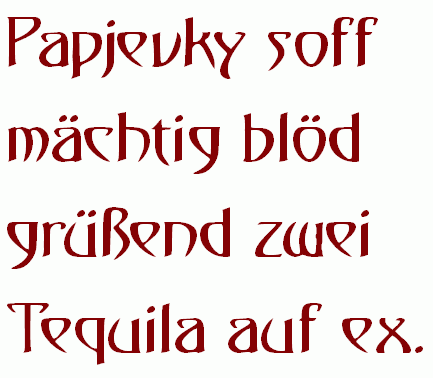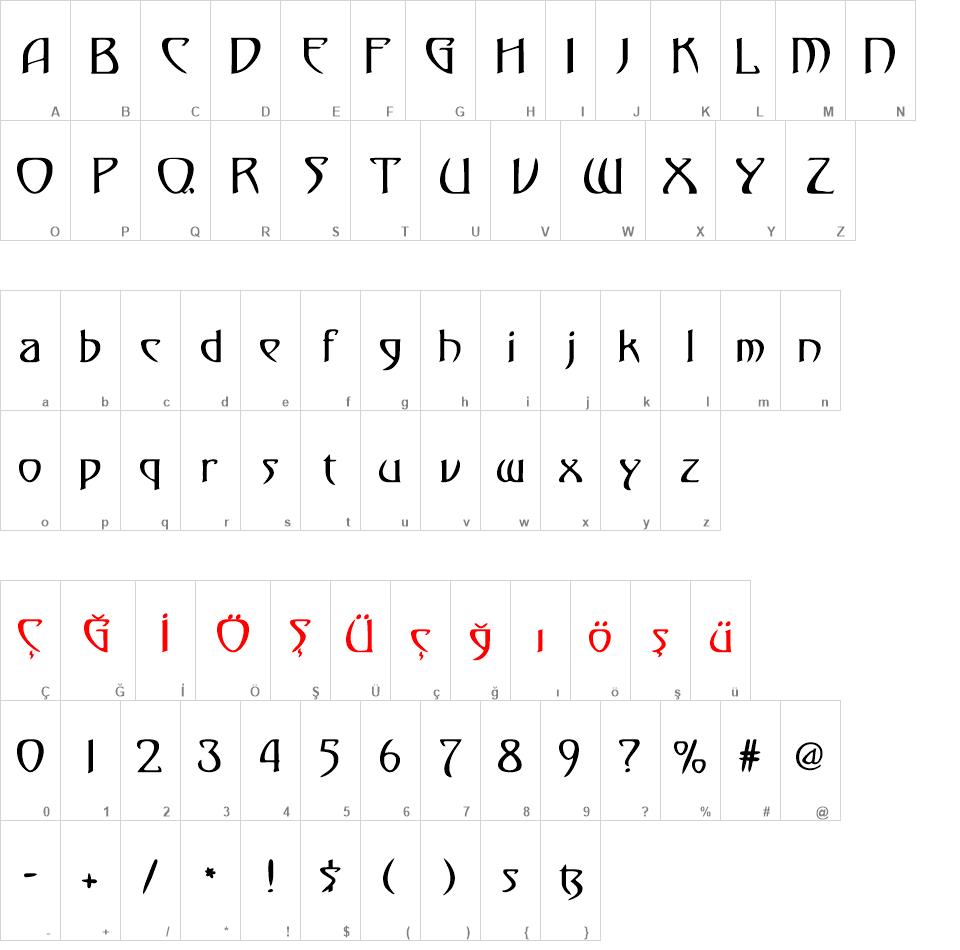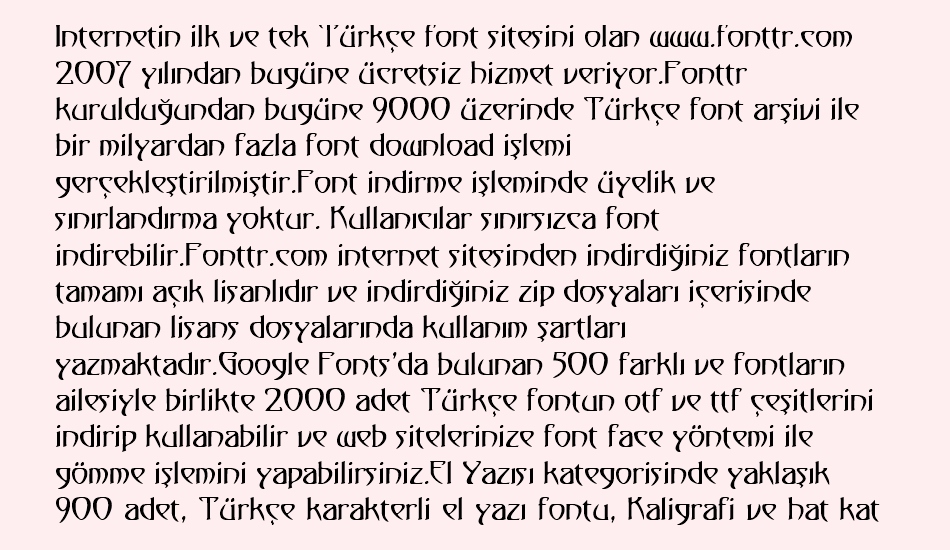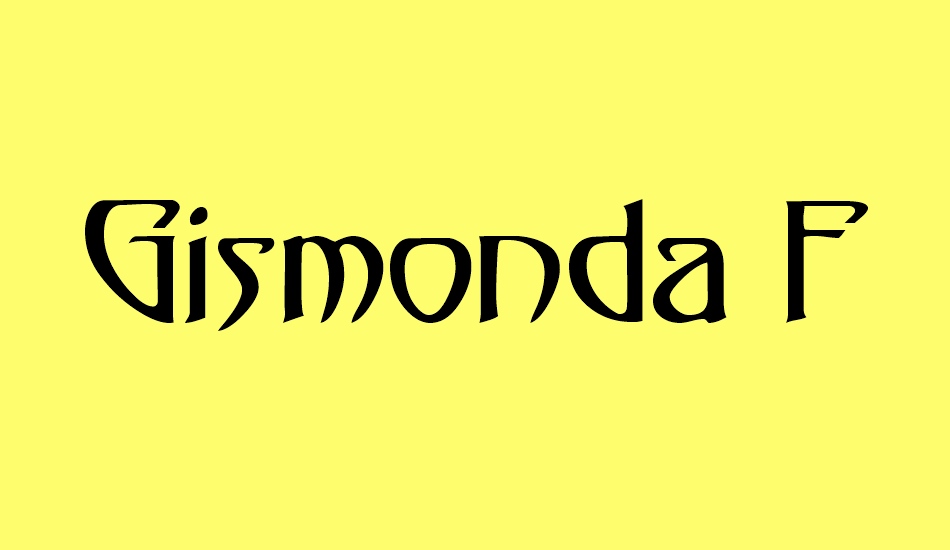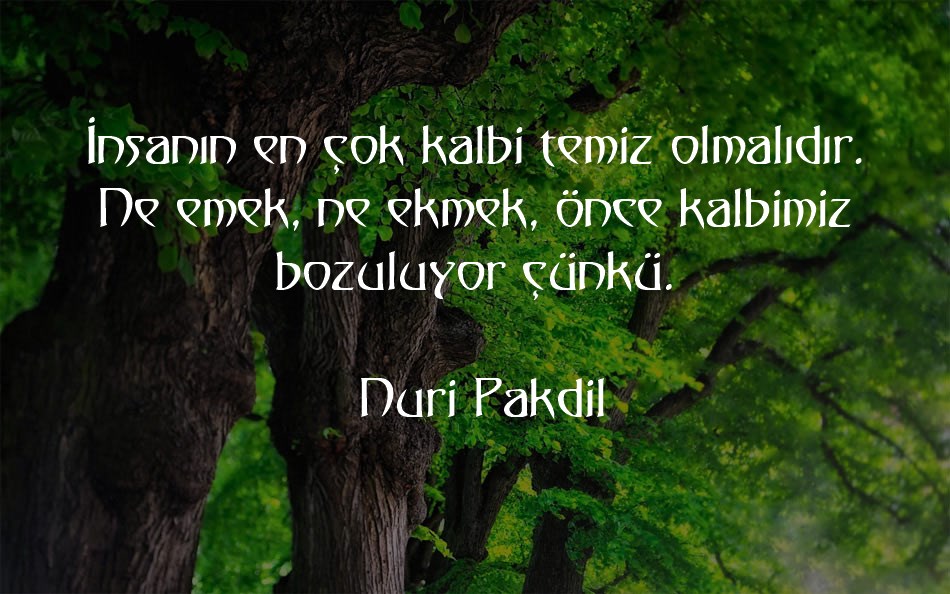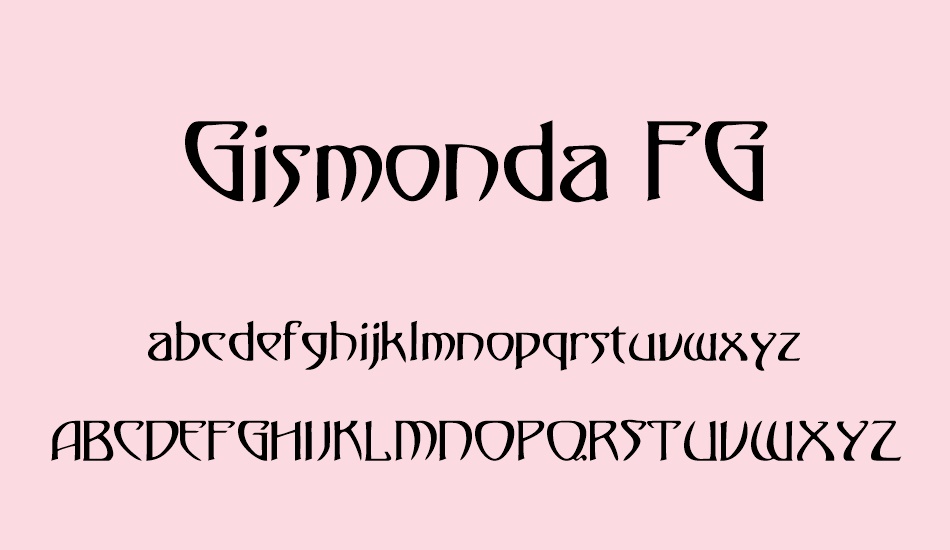
Gismonda FG font
Gismonda FG
Gismonda is an elegant Art-Nouveau style typeface in one weight possibly published first by the now extinct company Face Photosetting in London, UK.
I found this font on a PD font CD without any hints to its origin. In 2002, I cleaned up the glyphs and added international characters. That version was published in Fontgrube through the same year.
Later on I learned that the font digitisation was attributed to one Sam Wang - there are quite a few people of this name in the net but none of them obviously associated with fontmaking. He seems to have digitized a number of Art Nouveau typefaces in the early nineties (see http://luc.devroye.org/fonts-28307.html).
Last year, on October 22nd 2012, a Geoff Nicholson stated on Fontspace (http://www.fontspace.com/sam-wang/gismonda):
This typeface was actually designed by myself in 1971
for Face Photosetting in London , England.
The company ceased to exist in the mid 1980s, so
somehow I no longer seem to be credited for this.
Once again, there are several Geoff Nicholsons in the internet, and the one on fontspace did not reply to a request to explain in more detail. So all we have (as yet) on the history of Gismonda is two names and no idea who is behind them.